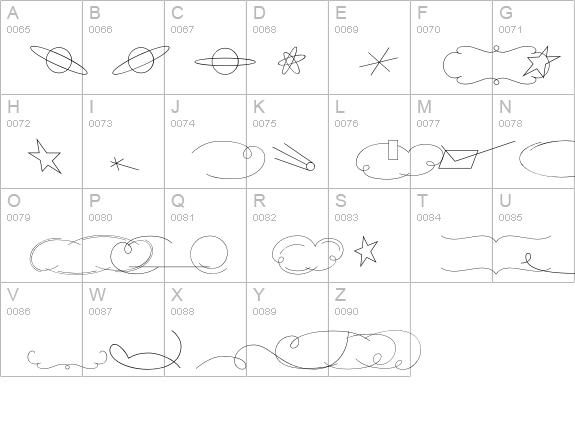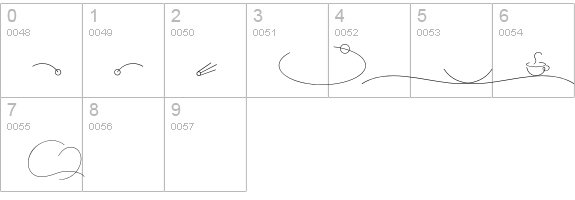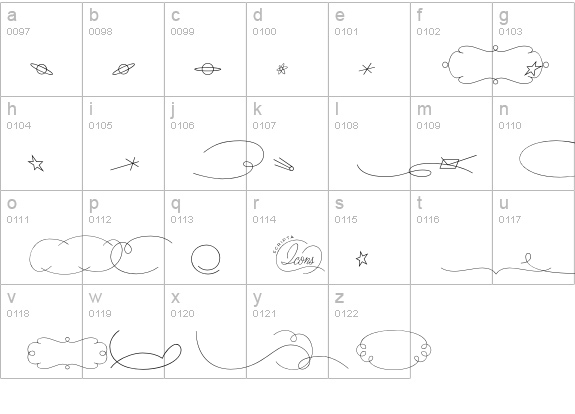
ScriptaIcons Font Details
ScriptaIcons is a stunning font that adds a touch of elegance and sophistication to any design project. This versatile font features a collection of beautifully crafted icons that are perfect for use in various applications such as websites, social media graphics, presentations, and more. With its clean lines and modern aesthetic, ScriptaIcons is sure to make your designs stand out. The best part is that ScriptaIcons is completely free to download at FontsMarket.com. Whether you're a designer looking to enhance your projects or simply someone who appreciates high-quality fonts, ScriptaIcons is a must-have addition to your font collection. Don't miss out on the opportunity to elevate your designs with this amazing font. Download ScriptaIcons today and take your creativity to the next level!